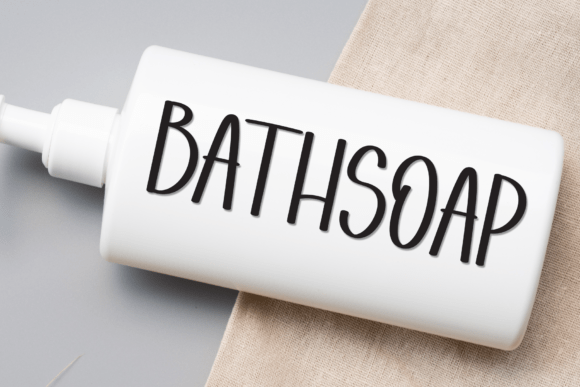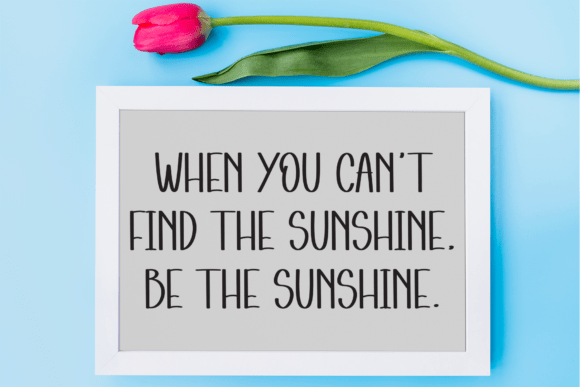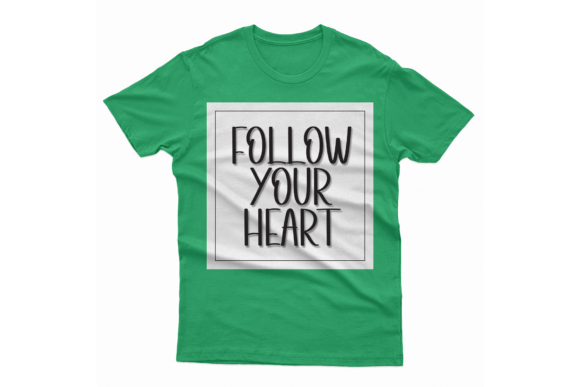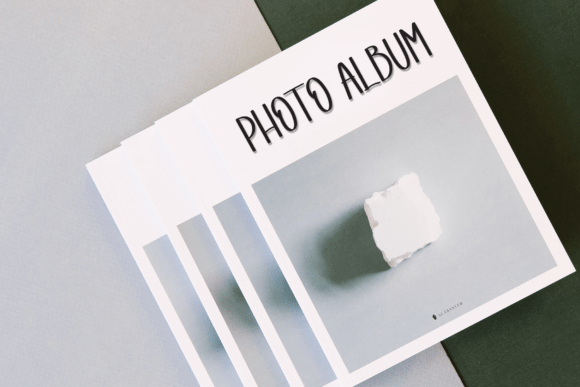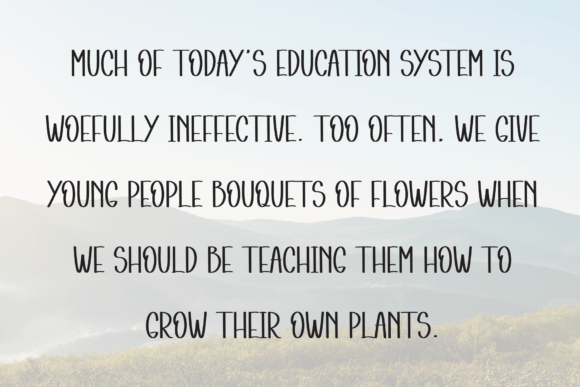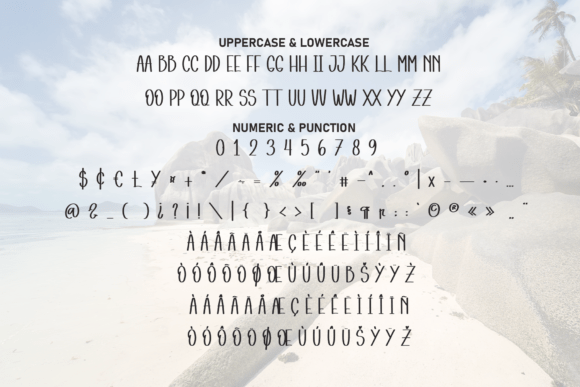
Discovering the Perfect Beachside Companion for Your Designs
There’s something magical about the feeling of sand between your toes and the sound of waves gently lapping at the shore. It’s a sensation that can spark creativity and inspire us to bring our most imaginative ideas to life. For designers, this feeling can translate into the perfect font to capture the essence of a carefree, beachy vibe.
Enter the Beach Wonder Font, a beautiful display font that embodies the spirit of a seaside escape. With its clean lines, balanced letterforms, and subtle rounded edges, this font is the perfect companion for designers looking to add a warm and inviting touch to their branding, headlines, packaging, and digital content. Its crisp structure and versatile style make it an invaluable asset for any designer looking to deliver clarity and charm in equal measure.
Key Features of Beach Wonder Font
- Size: The font family includes 6 different weights, ranging from Light to Bold, allowing for a variety of design applications and styles.
- Resolution: Beach Wonder Font is designed to be highly legible at high resolutions, making it ideal for use in digital media and large-scale print projects.
- Unique Characteristics: The font features a unique, hand-drawn aesthetic with subtle texture and organic feel, evoking the natural beauty of the beach.
- Language Support: Beach Wonder Font includes comprehensive language support, covering Latin, Greek, and Cyrillic scripts, making it suitable for use in a wide range of languages.
- Scalability: The font is designed to be highly scalable, allowing it to be used effectively in a variety of sizes, from small text to large display headings.
Beach Wonder Font Review
Overall, I was excited to dive into the Beach Wonder Font and see what it had to offer. Here are my honest thoughts on what works and what doesn’t.
- Unique and Playful Feel: The Beach Wonder Font has a distinct, carefree vibe that’s perfect for summer-themed projects or anything that needs a fun, beachy feel.
- Good for Display Text: The font is designed for larger text sizes and really shines when used in headings or titles.
- Fun Alternates: The font includes a range of alternates and swashes that can add a personal touch to your designs.
- Not Ideal for Body Text: While the font is great for display text, it’s not as readable in smaller text sizes, making it less suitable for body text or large blocks of text.
- Limited Character Set: The font has a limited character set, which may not be ideal for projects that require a wide range of characters or languages.
Overall, the Beach Wonder Font is a fun and playful addition to any designer’s toolkit. While it has its limitations, it’s perfect for projects that need a carefree, beachy vibe. Just be mindful of its limitations and use it where it shines – in display text and headings.
Tips for Getting the Most Out of the Beach Wonder Font
Use the Beach Wonder Font in combination with other design elements to create a unique and visually appealing design. Experiment with different font sizes, colors, and alignments to find the perfect look for your project. Consider using the font in combination with textures and patterns to add depth and interest.
The Beach Wonder Font is perfect for creating designs that evoke a sense of fun and playfulness. Use it in projects such as:
- Summer-themed invitations and party decor
- Beach-themed branding and marketing materials
- Children’s book covers and illustrations
Q: What is the character set and language support for Beach Wonder Font?
The Beach Wonder Font includes a comprehensive character set, covering Latin, Cyrillic, and Greek alphabets, as well as a range of punctuation and symbol characters. Language support includes English, Spanish, French, German, Italian, Portuguese, Dutch, Russian, and many others. For a detailed list of supported languages and characters, please refer to the font’s documentation.